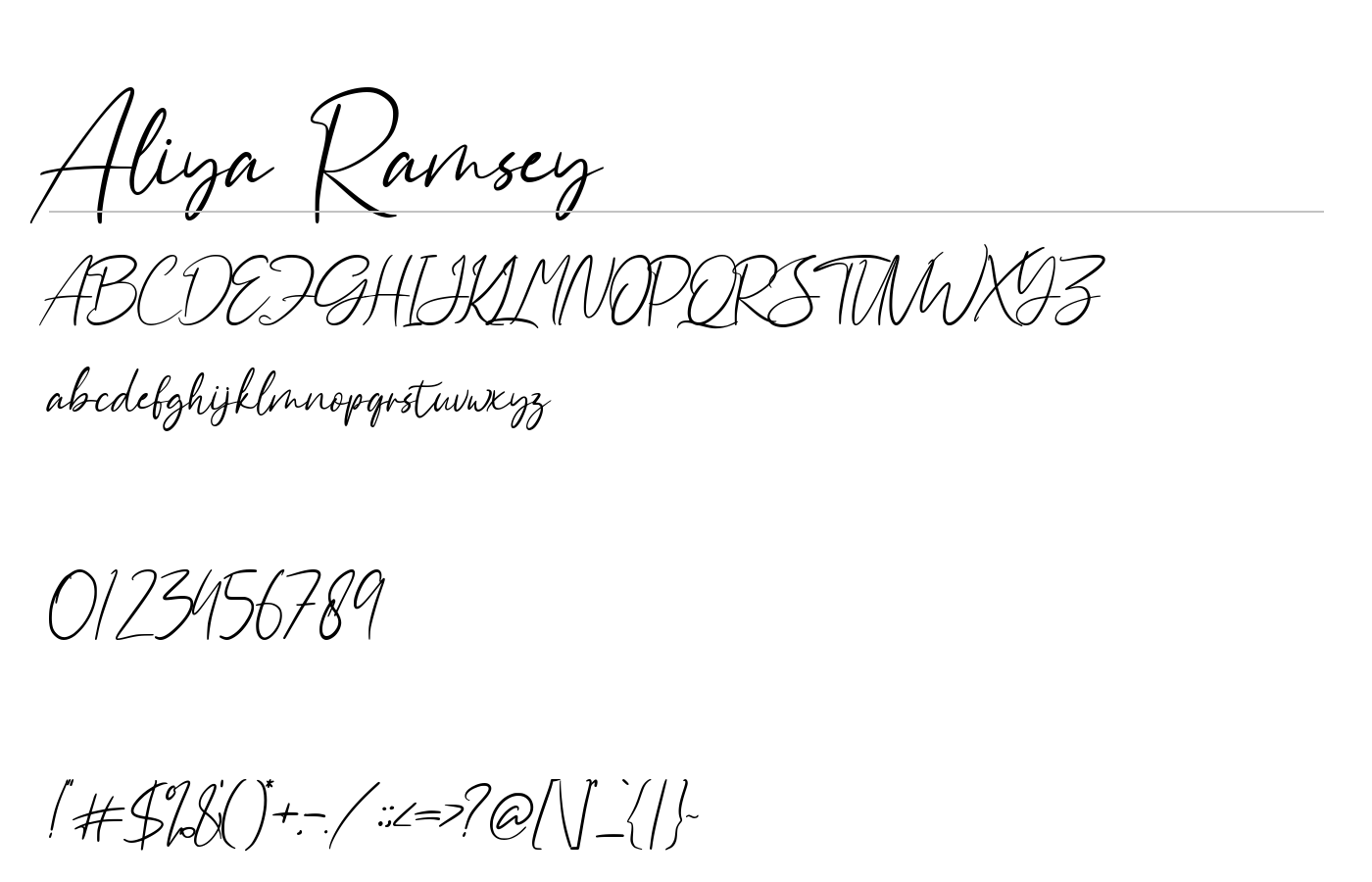
Aliya Ramsey is a delicate, modern script font characterized by its thin, flowing strokes and elegant, handwritten style. It offers a light and airy feel with tall, slender letterforms that convey sophistication and a personal touch, making it ideal for branding, invitations, and stylish editorial use. This font works beautifully where a refined, graceful, and contemporary script is needed to evoke elegance and warmth.
Aliya Ramsey Font
About Aliya Ramsey Font